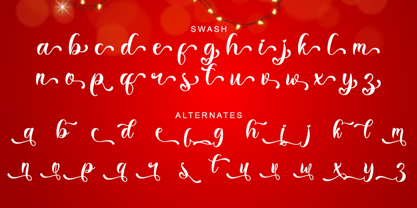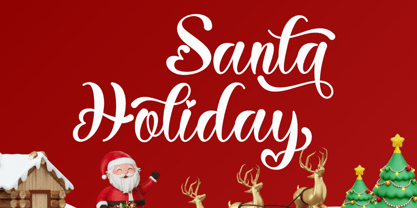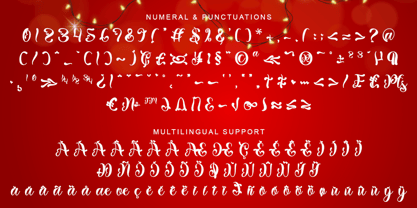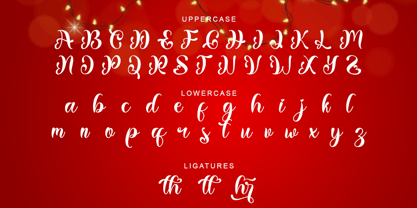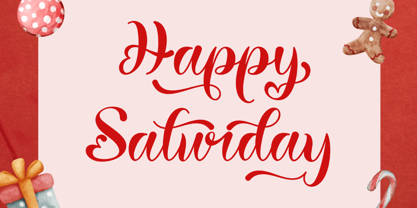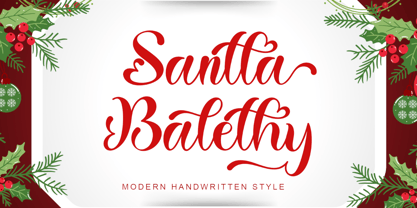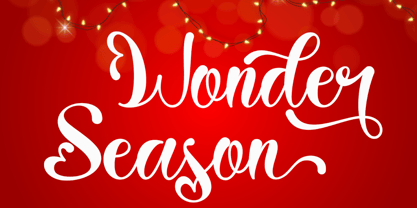
Santta Balethy
by Yoga Letter
The Santta Balethy Font Family was designed by Isroni Yoga Prasetya and published by Yoga Letter. Santta Balethy contains 1 styles. More about this family
"Christmas Balethy" is a unique and beautiful handwritten font. It features uppercase and lowercase letters, numerals, punctuations, multilingual support, ligatures, swashes, and alternates. It's perfect for Christmas, Halloween, back to school, teachers, Valentine's Day, invitations, and more.